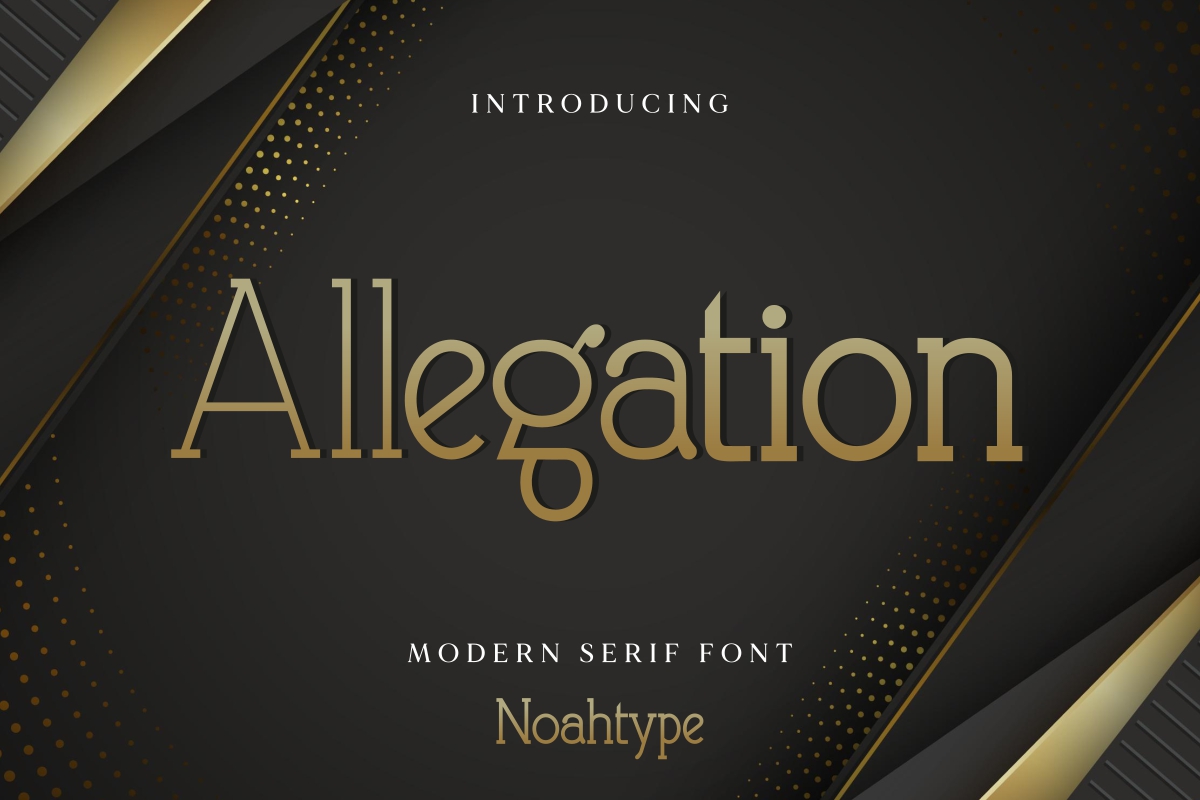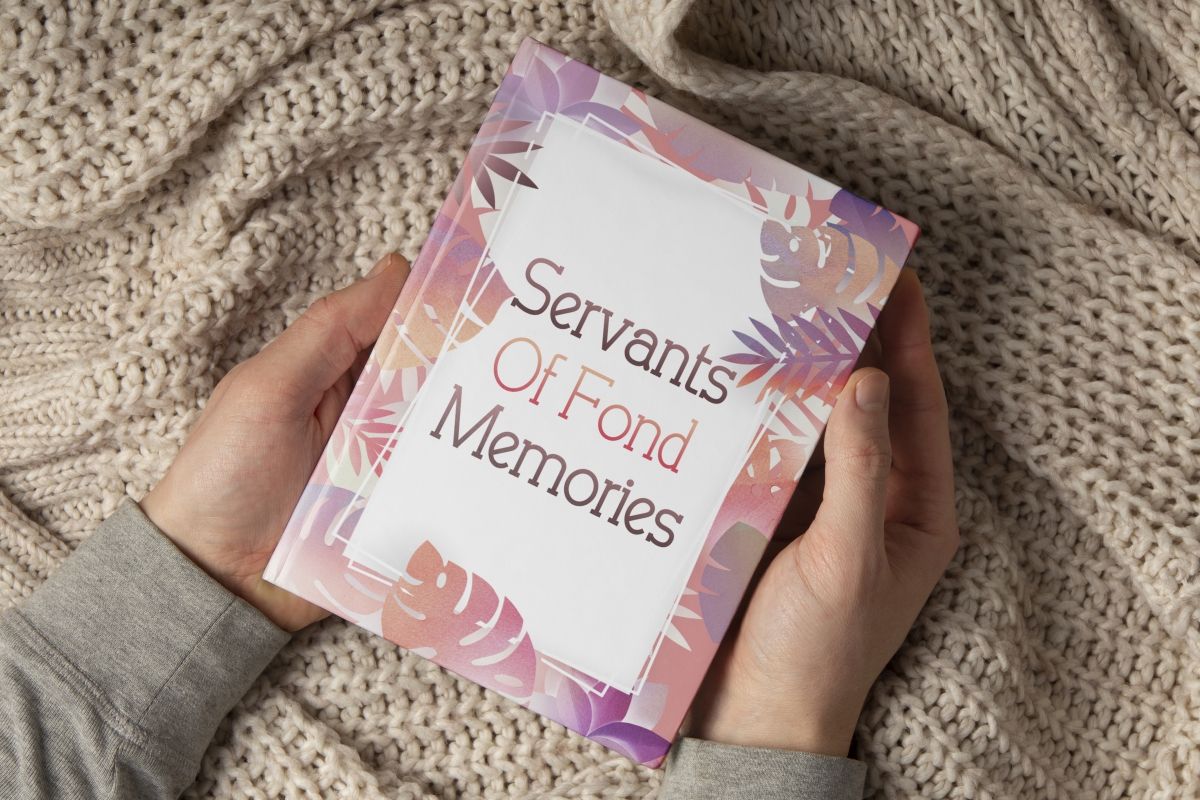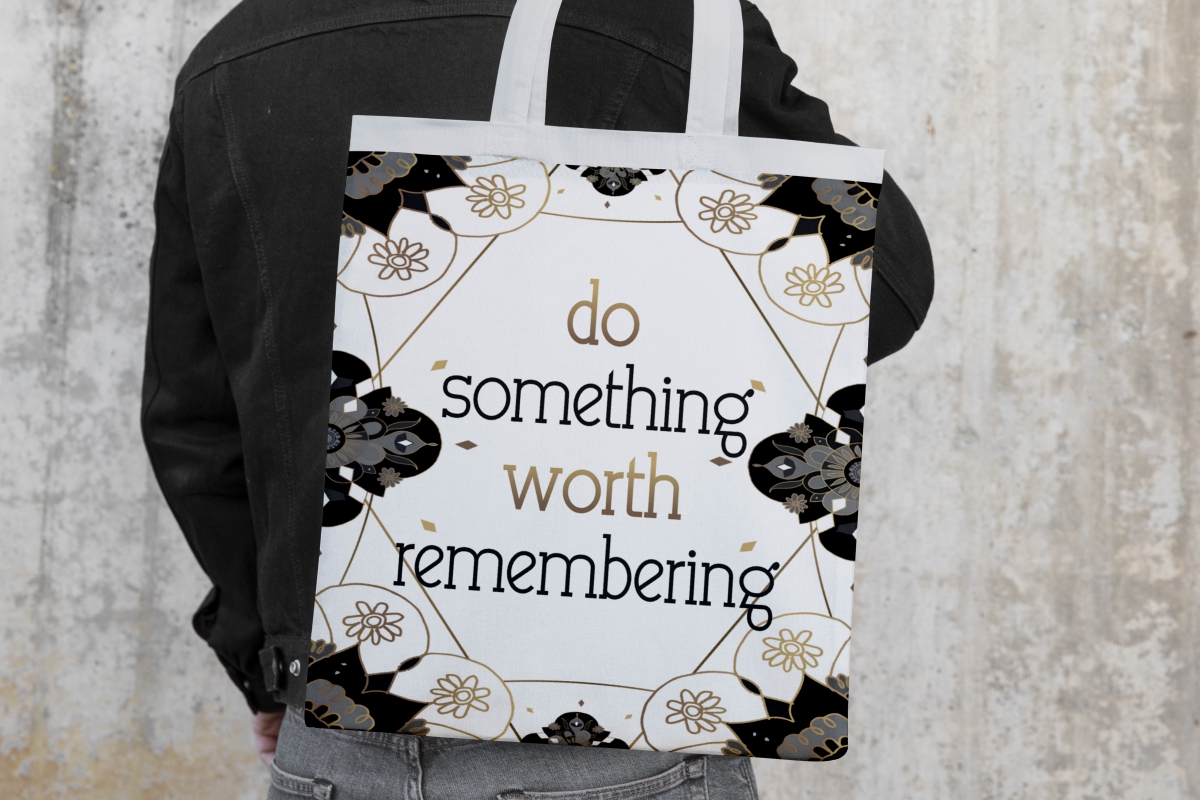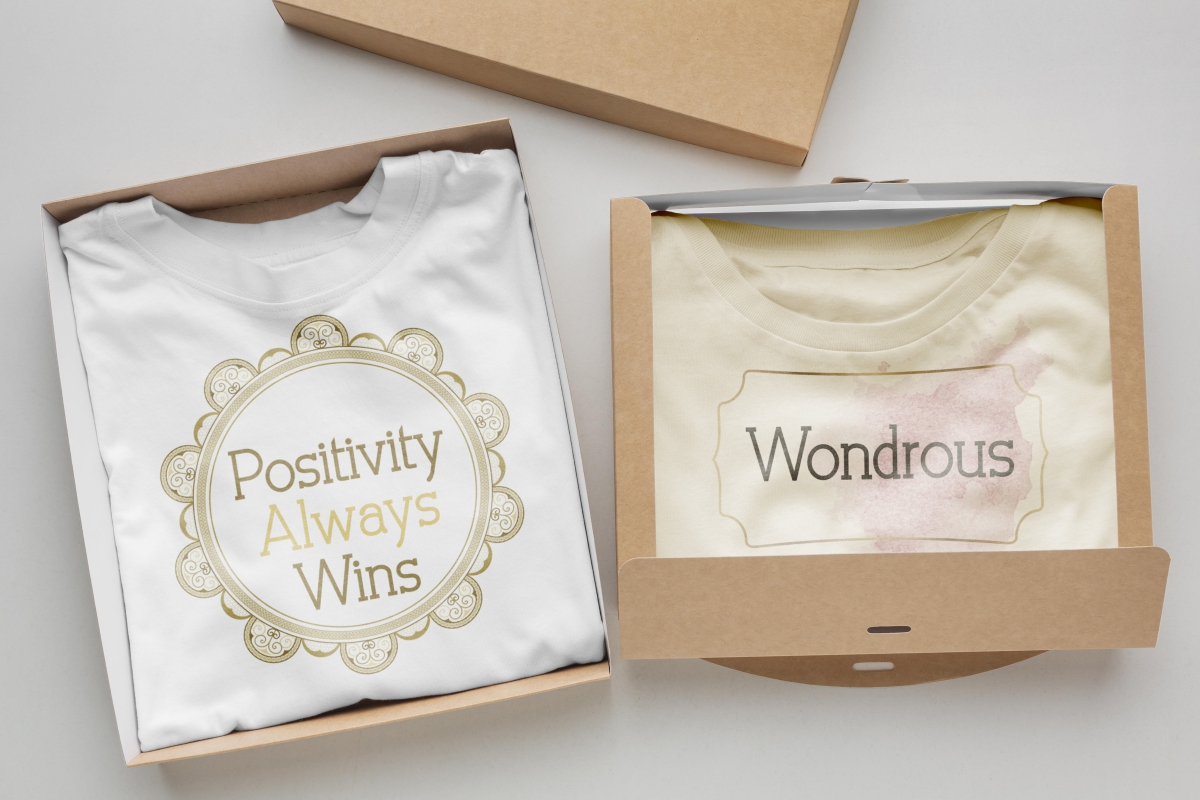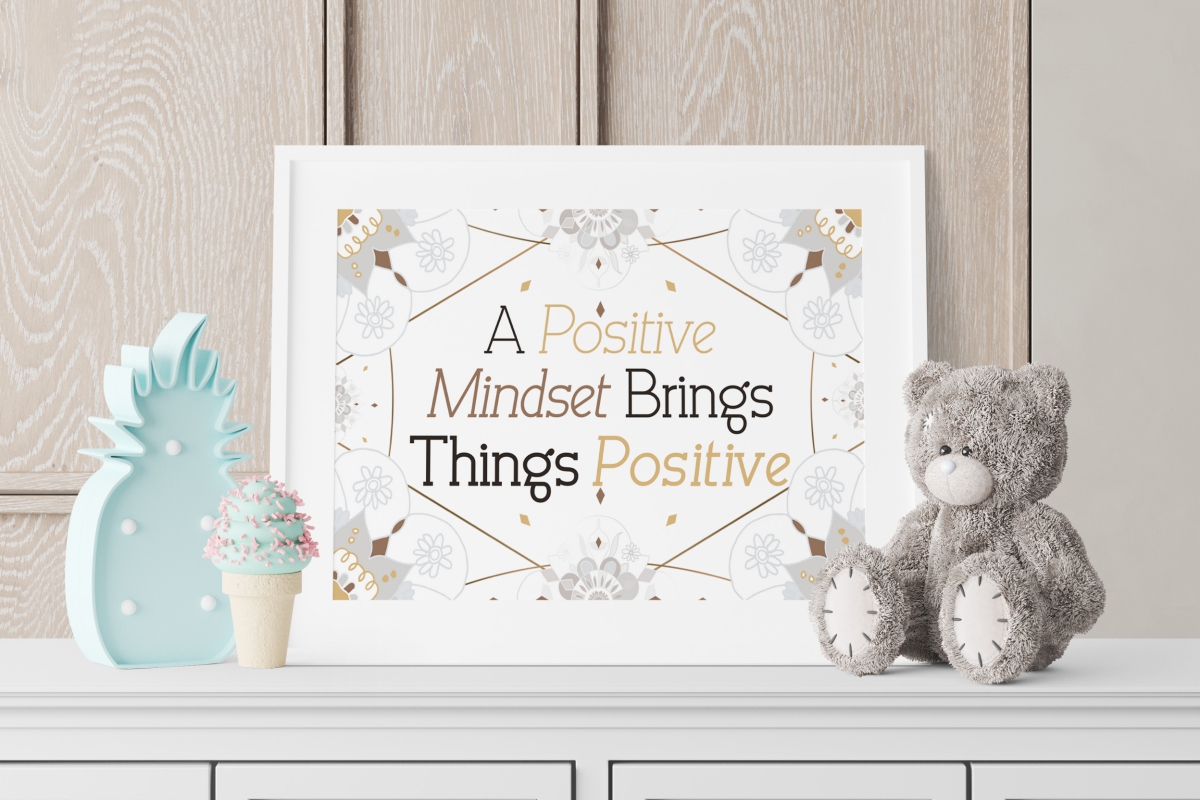
Allegation Slab Serif Font is a unique serif display font. This font has six different styles, there are Regular, Italic, Semibold, Semibold Italic, Bold, and Bold Italic. It would be the best choice for many industries, such as advertisement, clothing brand, cosmetic, fashion, florist, handicrafts, perfume, printing, publishing, real estate, restaurant, writer, and more!
Allegation Font include full set of Uppercase and Lowercase Basic Characters, Numerals and Punctuation. This font would be perfect for projects that require a classy feel, such as frame art, gift box, labels, magazine catalog, product packaging, poster, price tag, screen printing, signage, stationery, title, etc.